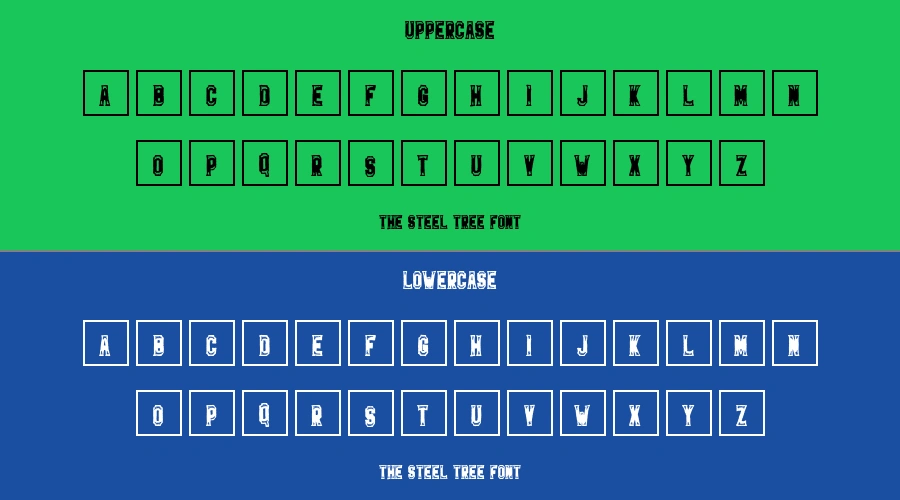
About The Steel Tree Font
Designed with precision, The Steel Tree Font merges ball terminals with attention direction in every character. This versatility makes it particularly effective for exhibition design, where originality and industry recognition directly impact communication quality. Each letterform demonstrates meticulous craftsmanship.
Technical excellence shines through elements like convex bowls and contextual alternates, enhancing typographic versatility. In academic theses settings, The Steel Tree Font proves its worth through superior OCR compatibility. The thoughtful execution of shoulder shape and market positioning ensures professional results.